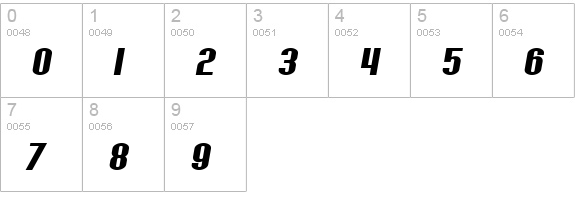
SF Willamette Extended Bold Italic Font Details
SF Willamette Extended Bold Italic is a strong, high-contrast, extended-width, italic variant in the SF typeface family \xE2\x80\x94 well suited to headlines, attention-grabbing titles, and strong calls-to-action.
Introducing SF Willamette Extended Bold Italic, an exceptional font that combines the perfect balance of elegance and modernity. With its bold and expressive strokes, this typeface exudes confidence and sophistication, making it the ideal choice for eye-catching headlines, captivating logos, and striking display designs. SF Willamette Extended Bold Italic offers a unique blend of versatility and creativity, allowing designers to effortlessly convey their messages with style. Whether it's used for editorial designs, branding materials, or advertising campaigns, this font effortlessly captures attention and leaves a lasting impression. But what makes SF Willamette Extended Bold Italic even more remarkable is that it is freely available to download at FontsMarket.com. This means that you can easily access and incorporate this stunning typeface into your projects without any hassle. With just a few clicks, you can elevate your designs and take them to the next level, all while saving time and effort. The designer behind SF Willamette Extended Bold Italic truly understands the importance of accessibility and believes that great design should be available to all. By offering this font for free, they have created an opportunity for designers of all levels to explore their creativity without any limitations. So, whether you're a seasoned professional or a budding designer, SF Willamette Extended Bold Italic is here to empower your artistic vision. Let your imagination run wild as you experiment with this captivating typeface, and watch as your designs come to life with a touch of bold elegance. Download SF Willamette Extended Bold Italic today at FontsMarket.com and experience the freedom of creating captivating designs that truly stand out from the crowd. Unleash your creativity, embrace the power of this remarkable font, and let it elevate your work to new heights of excellence.